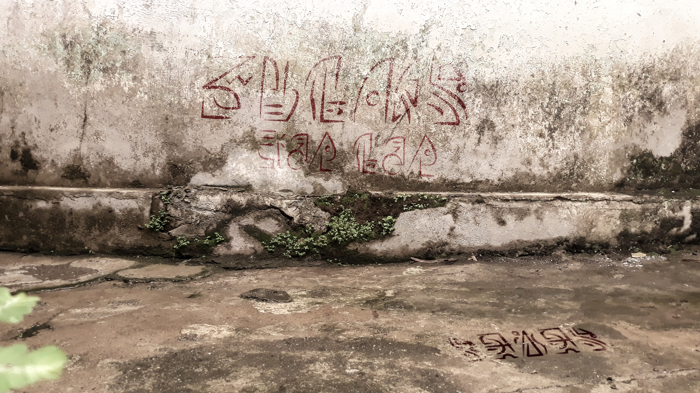
Xidus LeaDea Font
Native Style
Techno Style
The languages created by our teams are not only alphabets, they also hide a verbal language which can be learned. XiDus Lang ombwha, LeaDea and other projects are a nice contribution that we have made as a contribution for visual encryption alternatives for private information.